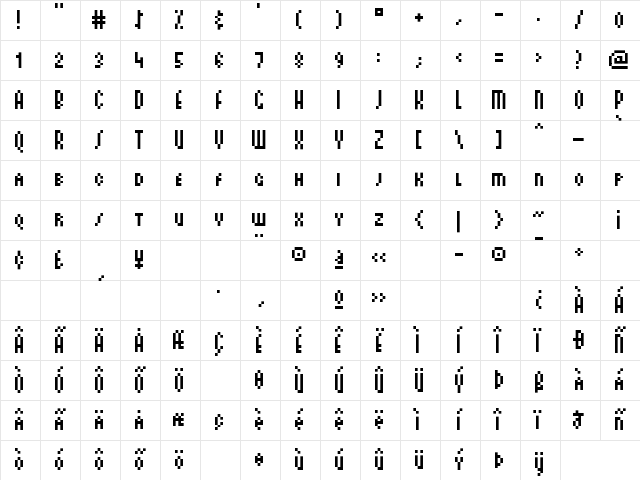
Arachnid Regular Free Font
Arachnid Regular
Arachnid Family
Arachnid Regular
Design Context for Arachnid
Arachnid is a composed and adaptable typeface that performs quietly and consistently across a wide range of design contexts.